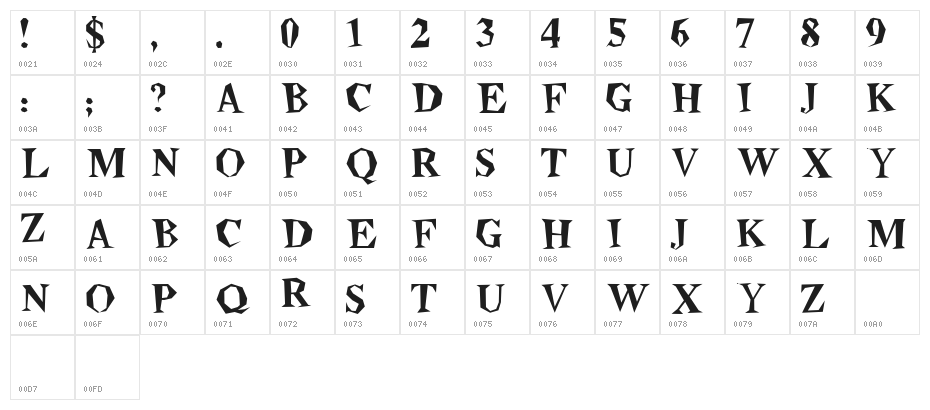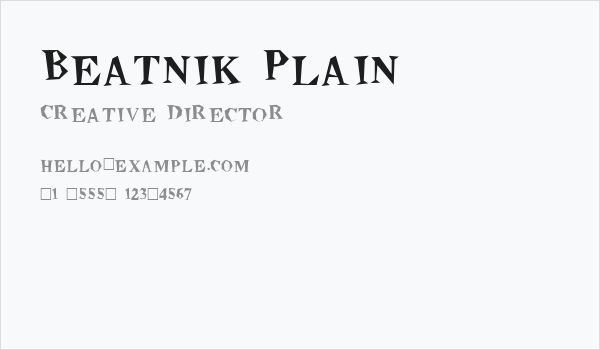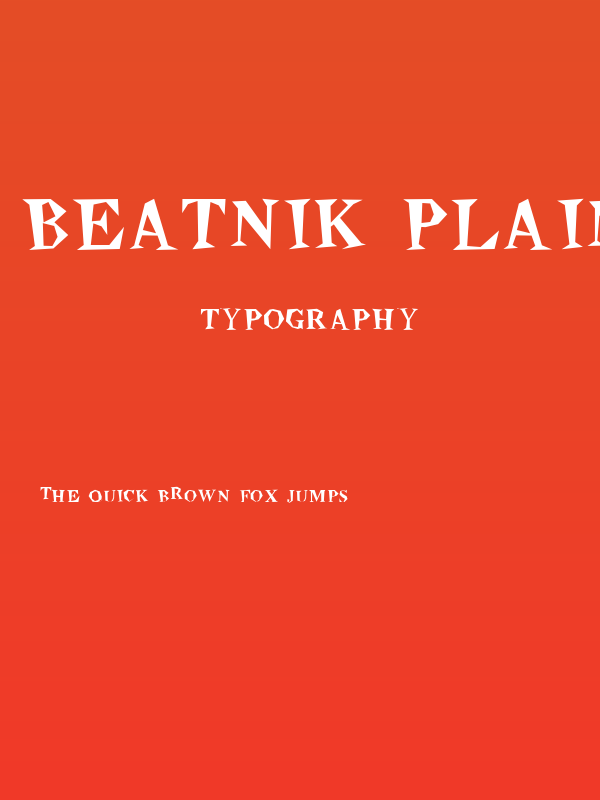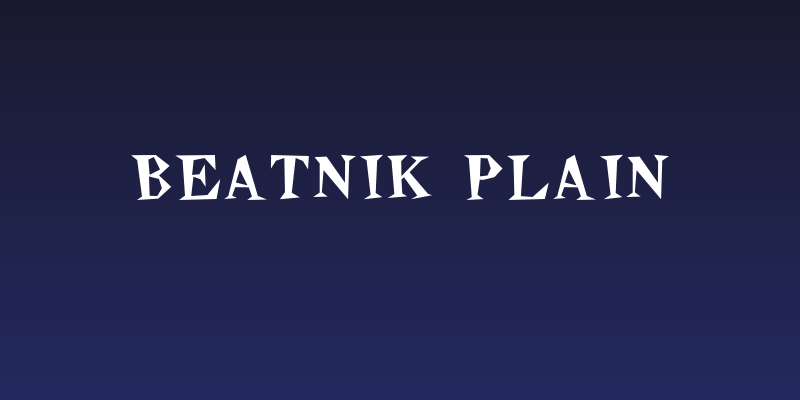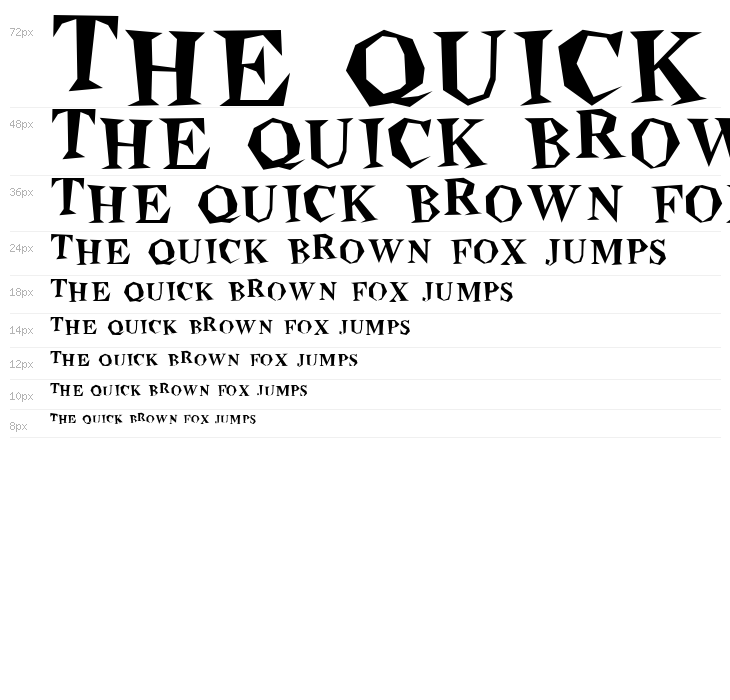
Beatnik Plain Font
Beatnik Plain Description
This font features a bold and edgy design with sharp, angular lines that give it a distinct, rebellious character. The uppercase letters are particularly striking, with exaggerated serifs and a slightly irregular form that adds to its unique style. The numbers and special characters maintain this bold aesthetic, making them stand out prominently. The overall appearance is dynamic and eye-catching, suitable for projects that require a strong visual impact.
Overall StyleModern, Edgy
Proposed ProjectsIdeal for posters, album covers, branding for edgy or alternative products, and any design needing a bold statement.